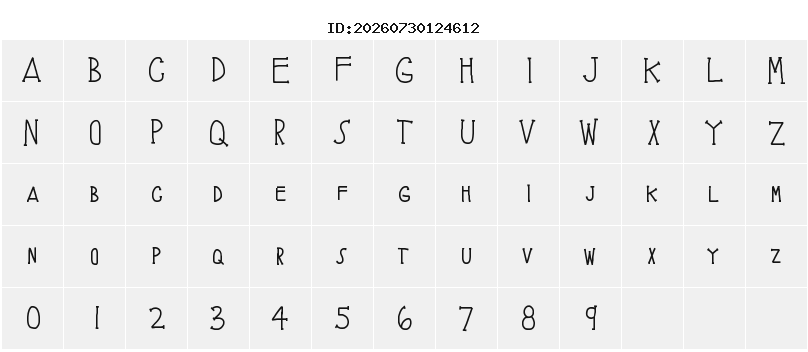
• Font Name: KBBrainySkeleton
About KBBrainySkeleton.ttf
KBBrainySkeleton.ttf is a modern, elegant sans-serif font designed for ultimate readability and visual harmony. Perfect for branding, headlines, web design, and print materials.